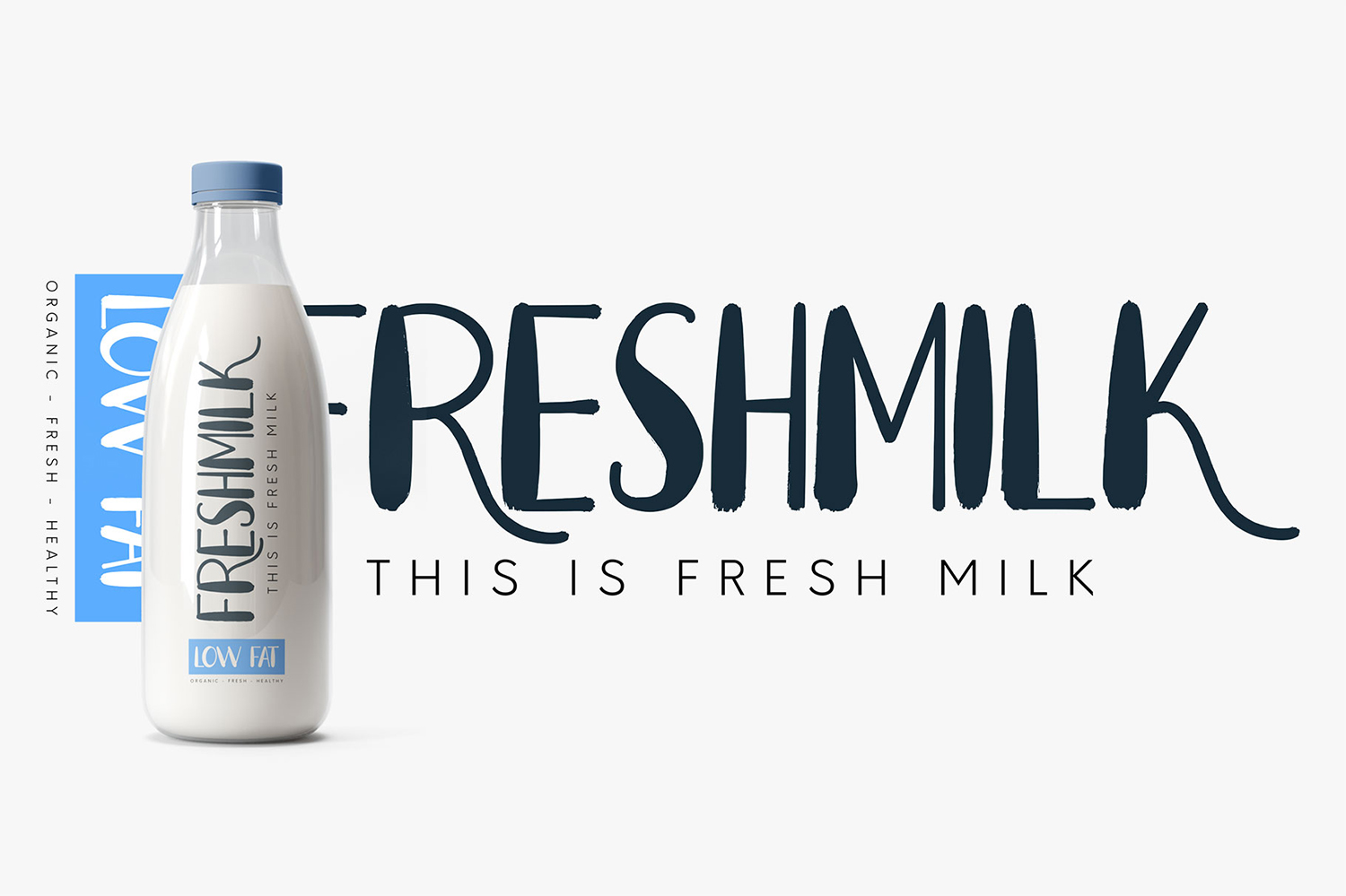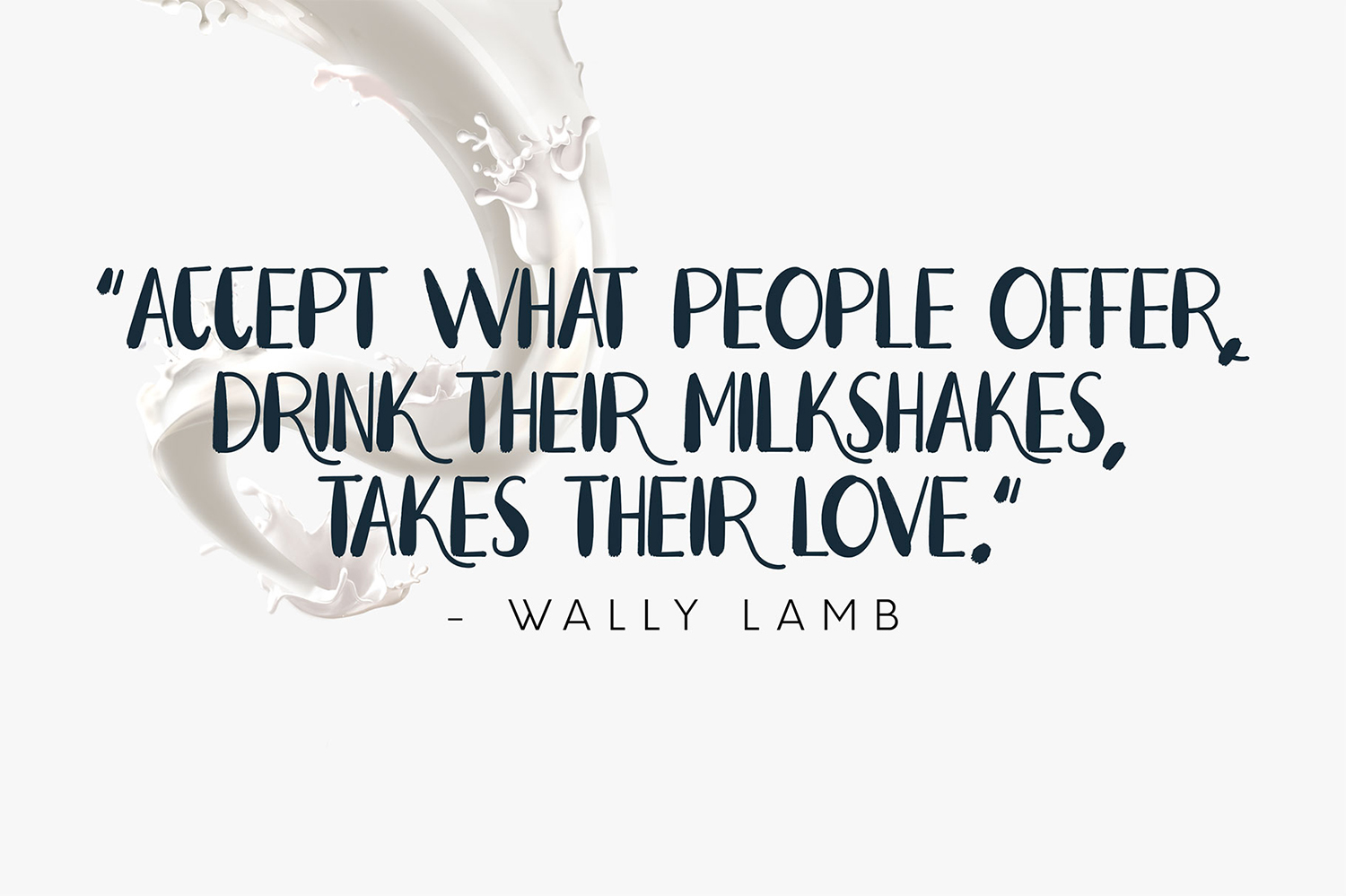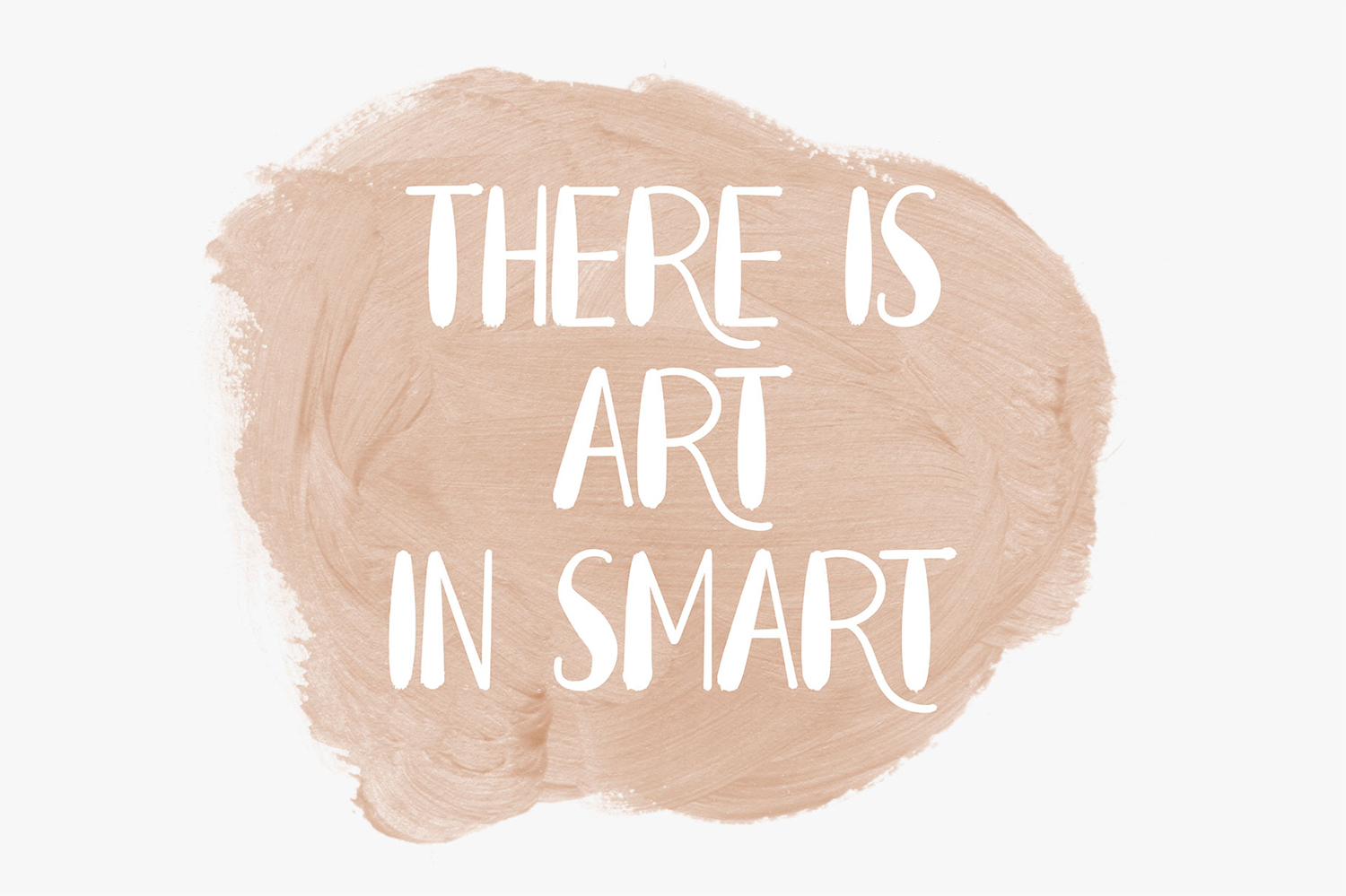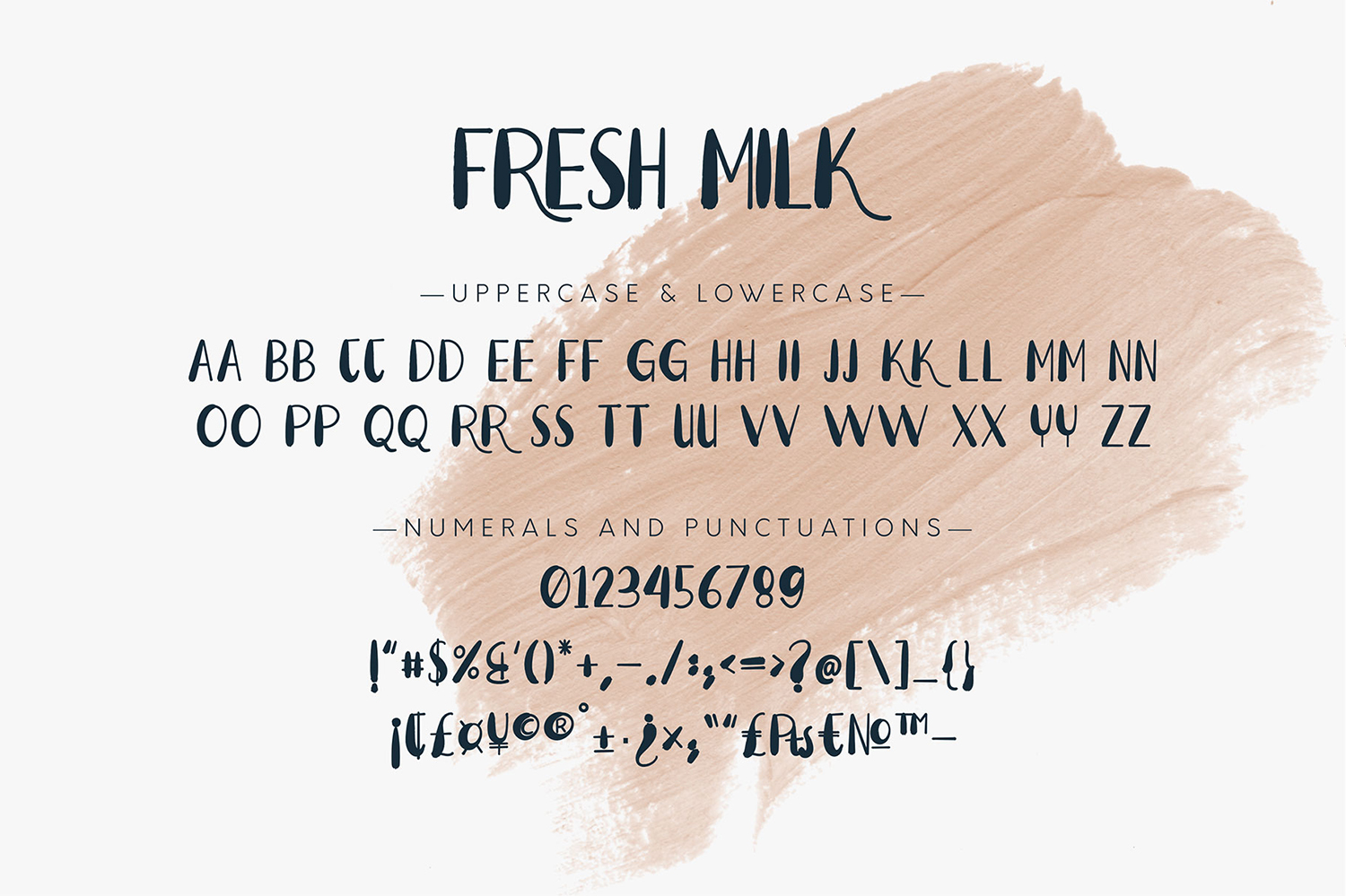
Fresh Milk Free Font
Fresh Milk Free Font is a handwritten brush font with textured and solid styles. Fresh Milk font is perfect for branding, logotype, apparel, T-shirt, Hoodie, product packaging, quotes, flyer, poster, etc. This free typeface was designed by the talented Ibnu Utomo. If you like it don’t forget to check out the full version.